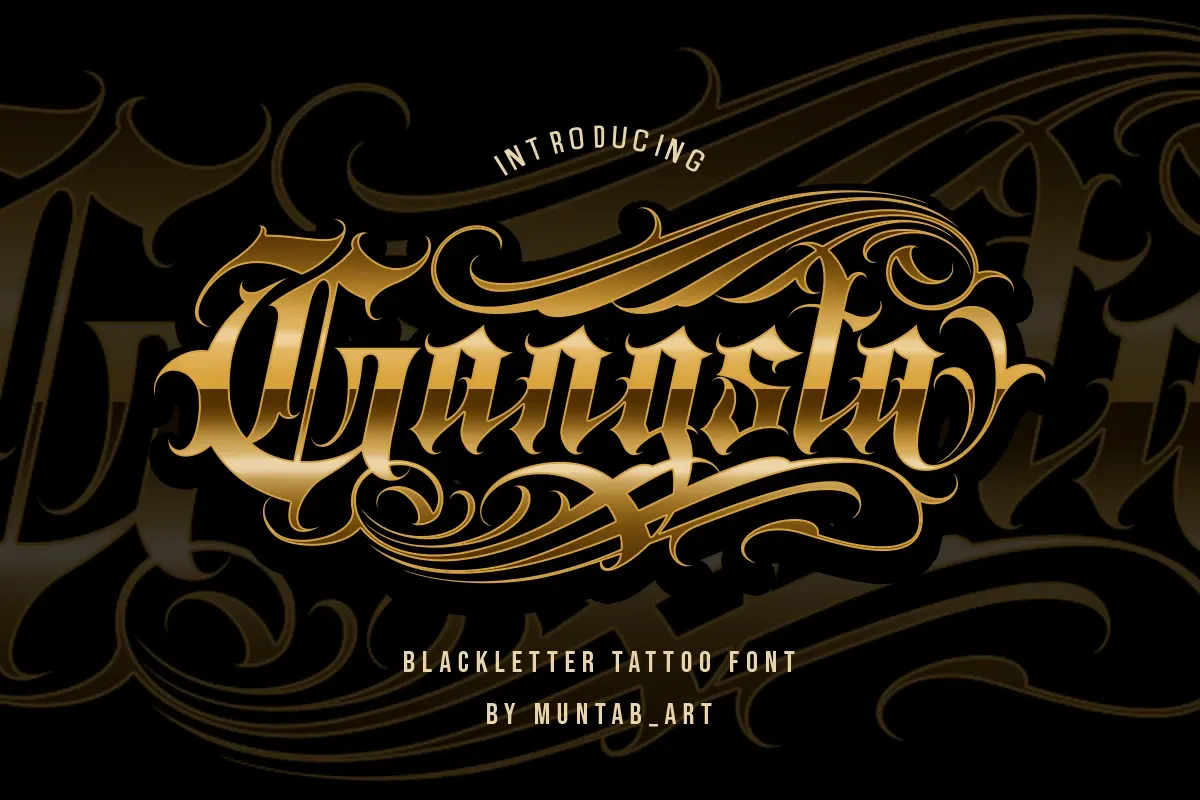
Gangsta Typeface | Tattoo Fonts Free Download
Bring bold attitude and vintage street style to your designs with Gangsta Typeface | Tattoo Fonts Free Download. Inspired by classic tattoo lettering and urban culture, this typeface is perfect for tattoo studios, apparel branding, music covers, poster designs, and anything that needs a tough, rebellious edge.
Gangsta Typeface features sharp, dramatic strokes and ornamental details that channel old-school ink vibes with authenticity and flair. It includes uppercase characters, numbers, punctuation, and stylistic elements—making it a great option for testing bold layouts with a distinctive personality.